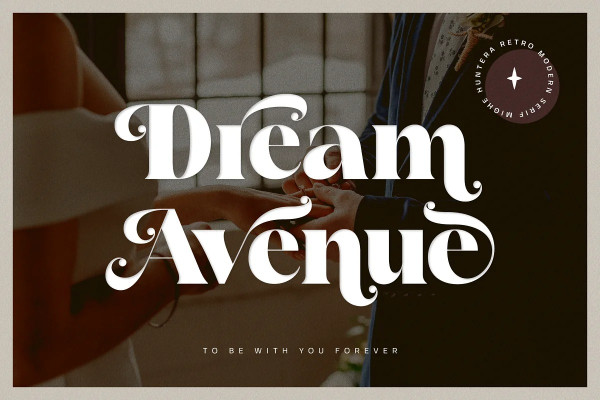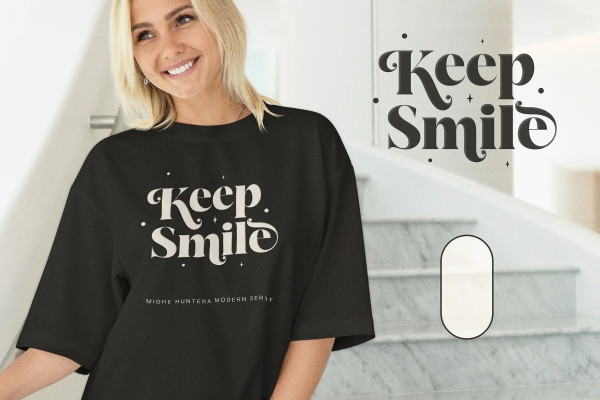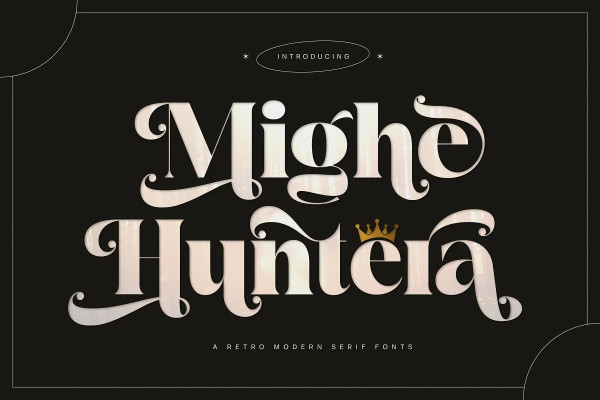
Mighe Huntera Font
Mighe Huntera Font – Retro modern serif typeface inspired by the typography of the ’90s, which exudes an irresistible sense of nostalgic and timeless charm.
Each character showcases sharp, defined serifs that effortlessly merge with thick, prominent strokes, creating a harmonious balance between boldness and elegance.